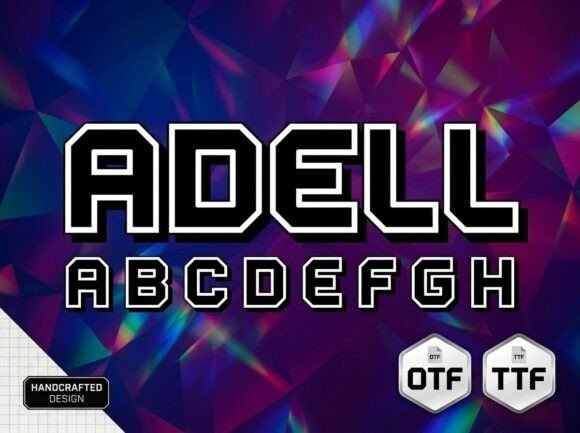
Meet the Font That Scores Big: Adell Font
Have you ever stared at a blank design canvas, struggling to bring your creative vision to life? Maybe it’s a logo for your local sports team, or a bold header for a new e-sports campaign. Whatever the project, you know you need a font that’s going to command attention and capture the energy of the moment. That’s where Adell Font comes in – a handcrafted display font designed to deliver maximum athletic impact.
With its massive, blocky letterforms and distinctive inline stroke, Adell Font is the perfect choice for sports branding, e-sports logos, and high-energy event headers. Whether you’re a seasoned designer or just starting out, Adell Font is a valuable addition to your toolkit – offering a sense of competitive strength and professional collegiate prestige that’s hard to match.
Key Features of Adell Font
- Font Family: Adell Font is a sans-serif font family.
- Size: Adell Font comes in 6 styles, including Thin, Light, Regular, Medium, Bold, and Black, each with its unique characteristics.
- Resolution: Optimized for high-resolution displays, making it perfect for use in modern digital applications and designs.
- Unique Characteristics: Adell Font features clean lines, geometric shapes, and a modern aesthetic, making it ideal for use in corporate branding, digital products, and editorial content.
Adell Font Review
When I first stumbled upon Adell Font, I was immediately drawn to its sleek and modern aesthetic. The font’s clean lines and minimalist approach make it a great choice for a wide range of projects, from branding and marketing materials to digital products and web design.
Here are some things that I think really work well with Adell Font:
- ✨ Unique character set: Adell Font offers a unique character set that’s perfect for adding a touch of personality to your designs.
- ✨ High legibility: The font is highly legible, making it a great choice for large blocks of text.
- ✨ Versatility: Adell Font can be used for a wide range of projects, from formal to informal.
However, there are some limitations to keep in mind:
- ⚠️ Limited language support: Adell Font may not be compatible with all languages, which could be a limitation for global projects.
- ⚠️ Not suitable for small text: While Adell Font is highly legible, it may not be the best choice for small text due to its clean lines and minimalist approach.
Overall, I think Adell Font is a solid choice for designers looking for a modern and versatile font. While it may have some limitations, its unique character set and high legibility make it a great addition to any design project.
Use Adell Font for creating elegant and sophisticated designs, such as:
– Wedding invitations
– Business cards
– Magazine headlines
For optimal results, use the Adell Font with a serif font pairing and a classic color scheme.